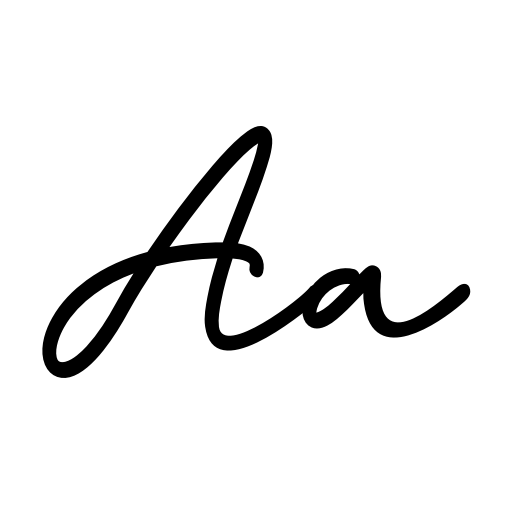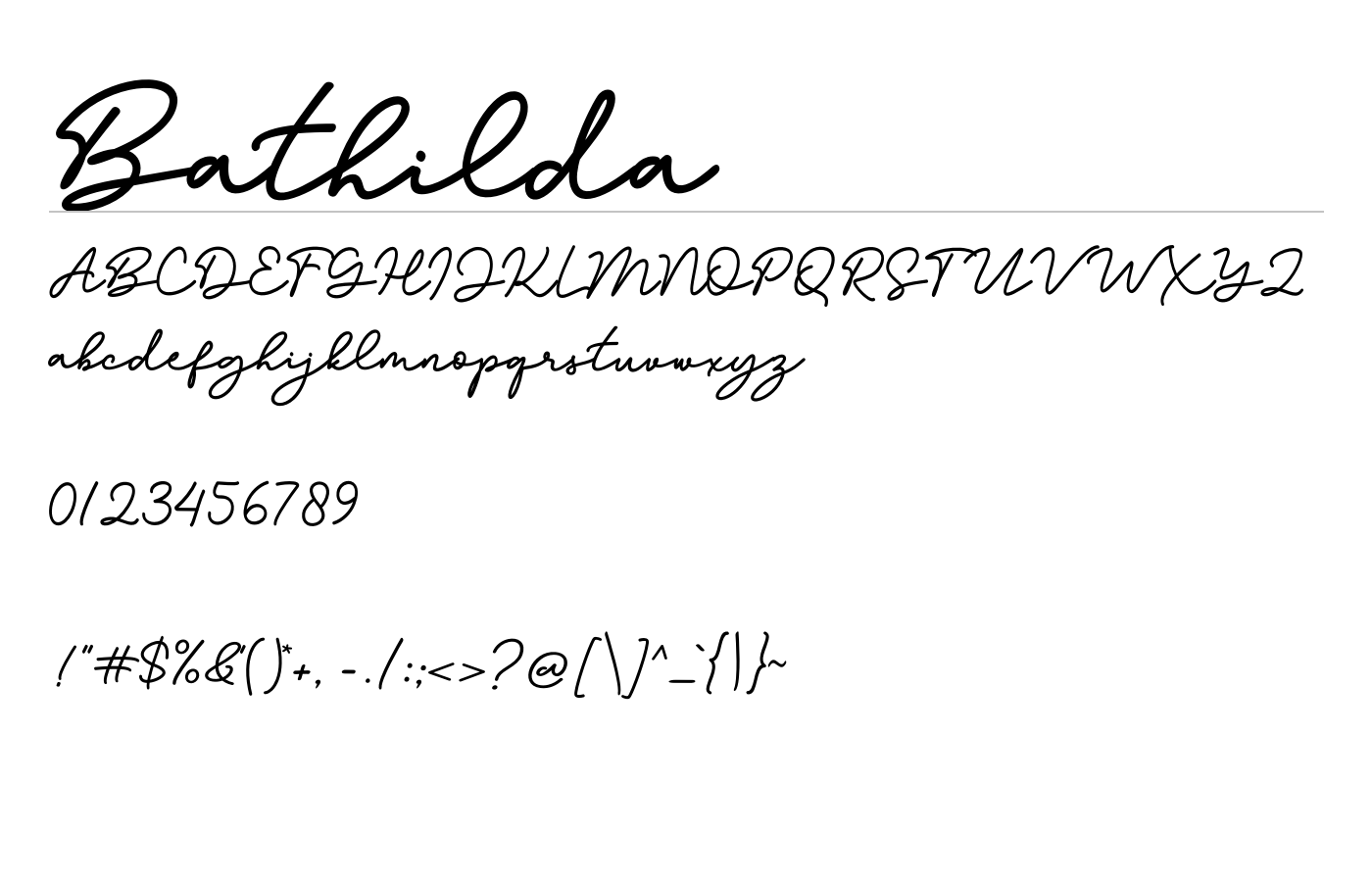
Bathilda is a graceful, handwritten script font with a light and airy feel, featuring smooth, fluid strokes and elegant connected letterforms. Its casual yet refined style makes it perfect for personal branding, invitations, and creative projects where a friendly and sophisticated touch is desired. With its delicate appearance and balanced spacing, Bathilda brings warmth and charm to headlines, logos, and packaging designs.
Bathilda Font
About Bathilda Font